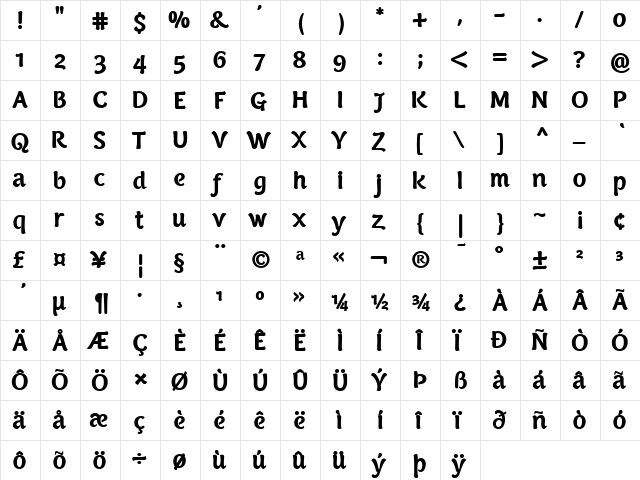
PF Armonia Bold
| Foundry | Vangelis Karageorgos |
| Designer | Vangelis Karageorgos |
Design Context for PF Armonia Typeface
PF Armonia offers clean, dependable letterforms without strong stylistic allegiance, making it a practical choice for designers who need flexibility. Its bold stroke weight gives it real presence on the page.
Pro Tip: Pair PF Armonia with a font of contrasting weight or personality to build a more expressive typographic hierarchy.